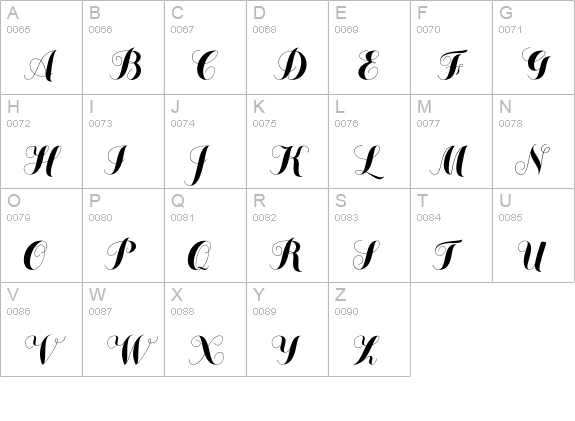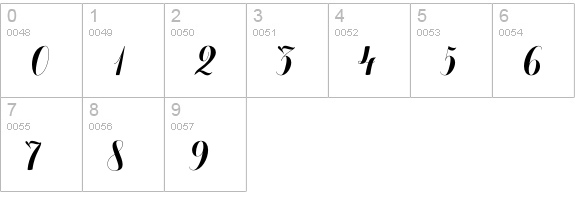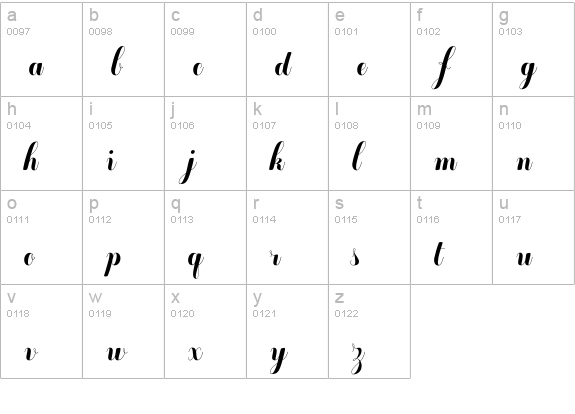
Introducing Chameleon Basic font, a versatile and stylish typeface that effortlessly adapts to any design project. This elegant font features clean lines and a modern aesthetic, making it perfect for a wide range of applications. Whether you're creating a website, designing a logo, or crafting a poster, Chameleon Basic font will elevate your work with its timeless appeal. What's even better? Chameleon Basic font is absolutely free to download at FontsMarket.com. Yes, you read that right - you can access this high-quality font without breaking the bank. So why wait? Add Chameleon Basic font to your collection today and let your creativity shine!